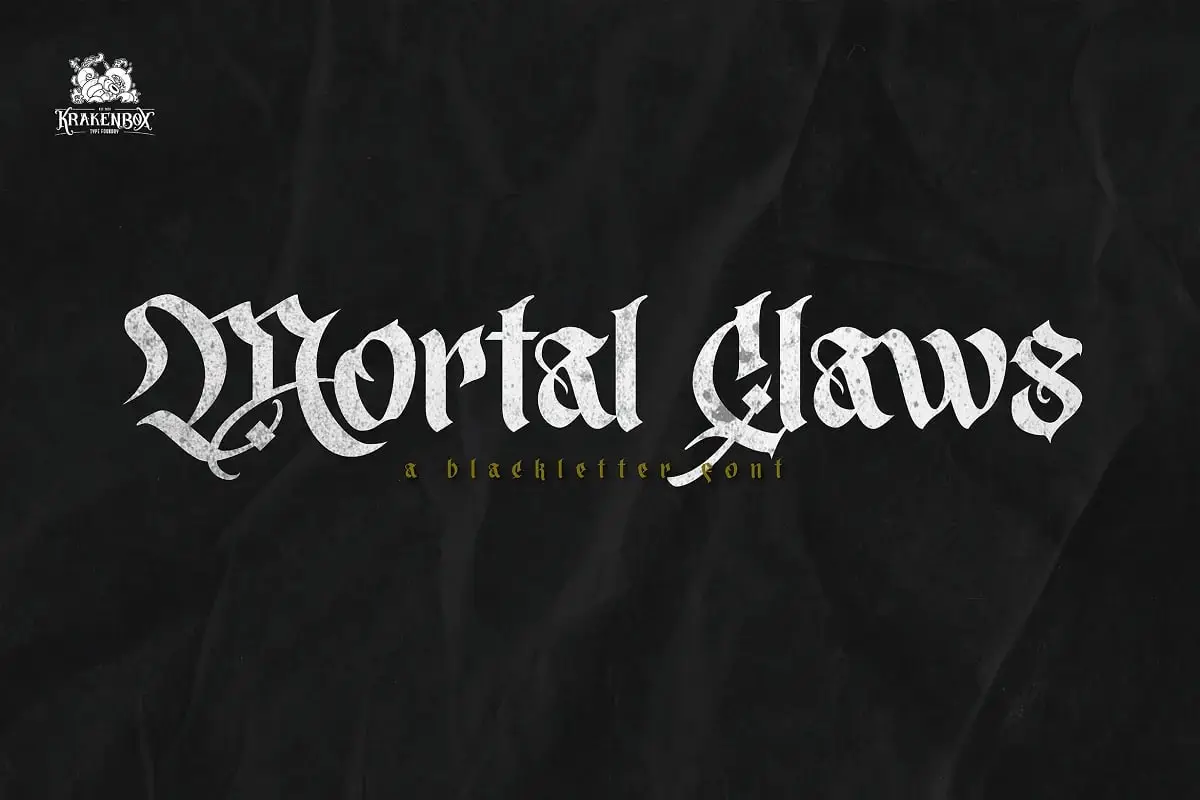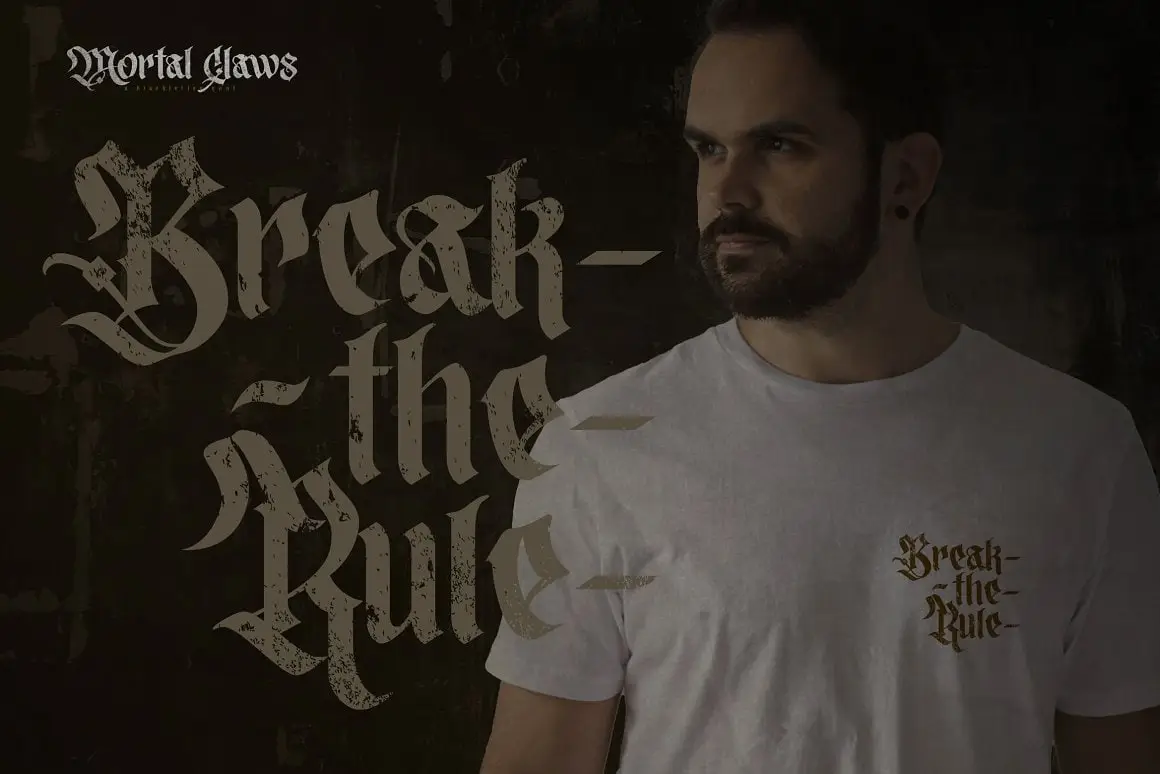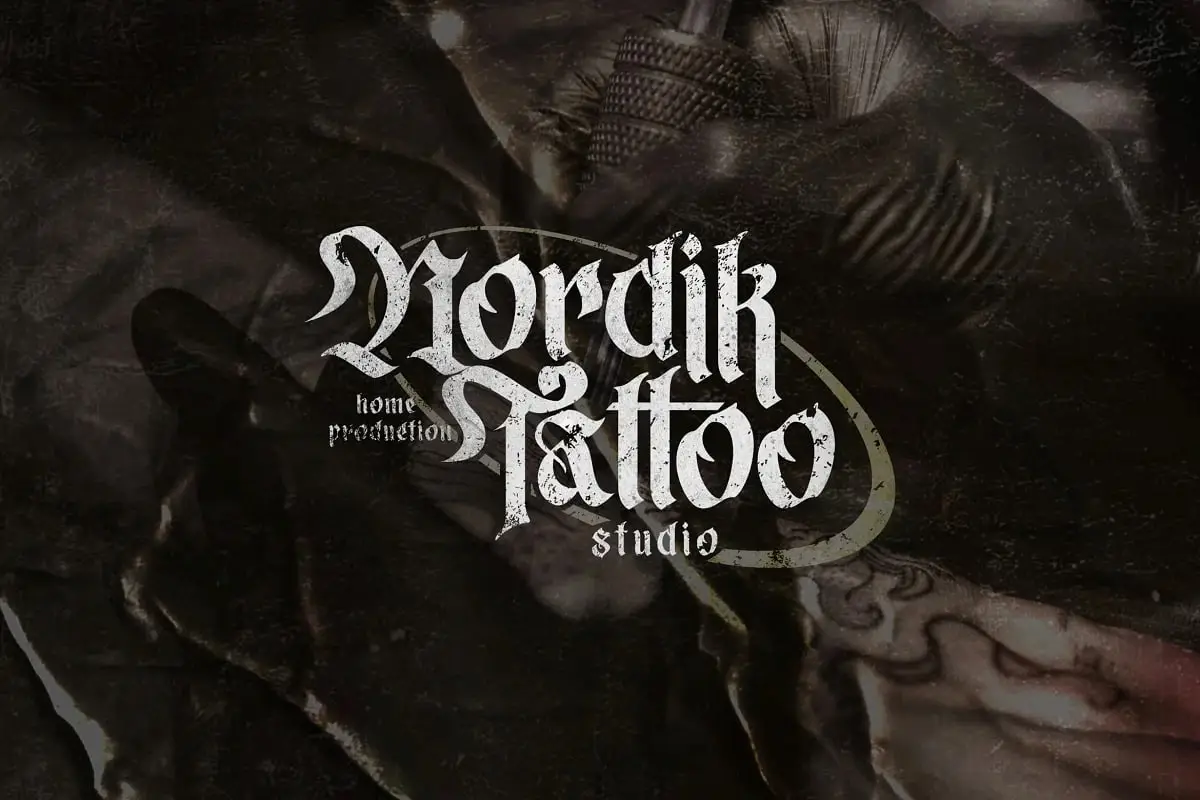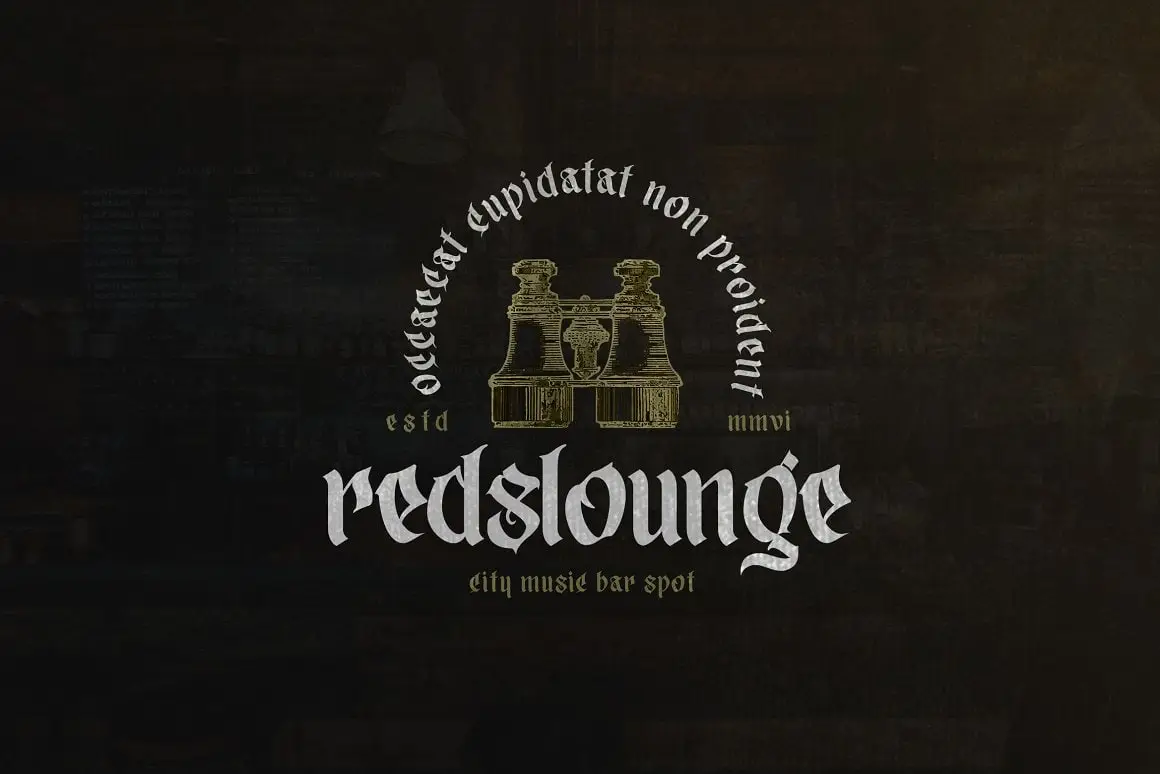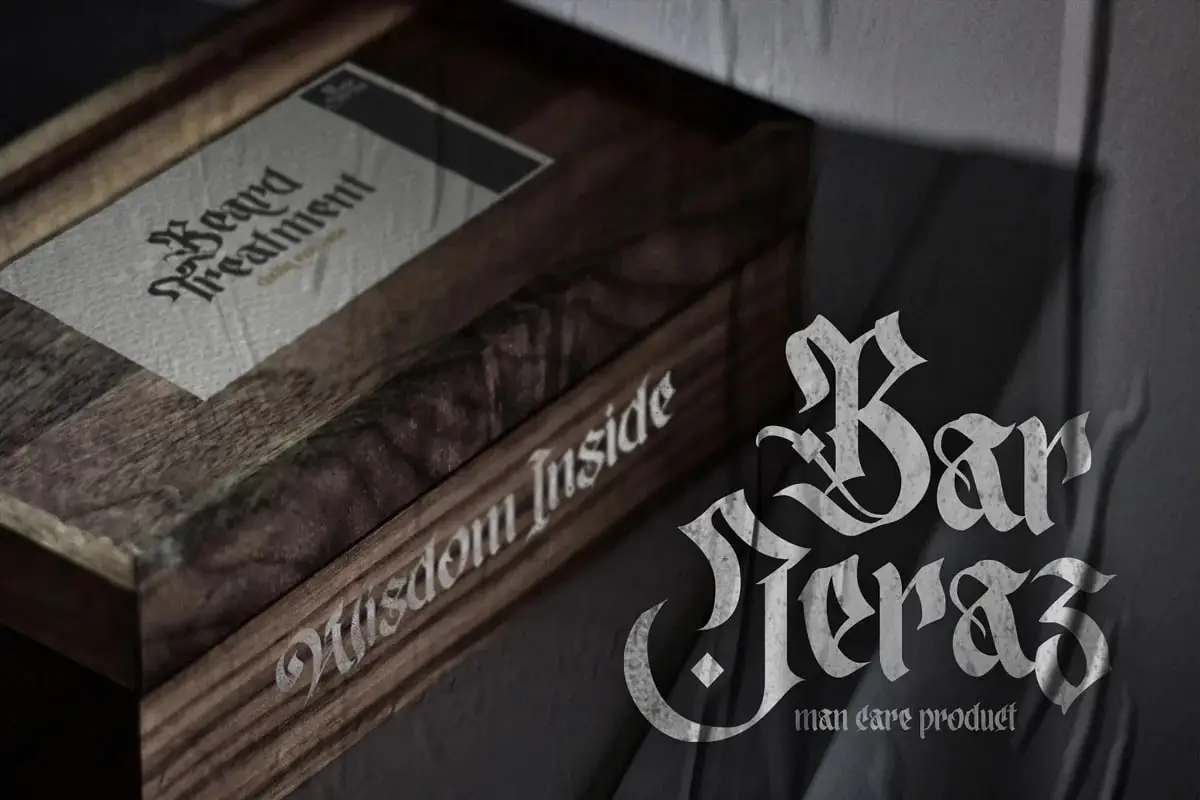
Mortal Claws-Blackletter Font
The Mortal Claws Blackletter Font is a striking typeface that embodies the classic gothic style, perfect for projects that require a bold and dramatic touch. With its intricate details and sharp edges, this font is ideal for creating eye-catching headlines, logos, and branding materials.
• Unique blackletter style with ornate detailing
• Multiple weights for versatile design options
• Style: Blackletter
• Ideal for branding, posters, and packaging
• Use in web design for a vintage or gothic aesthetic
• Perfect for invitations and event materials